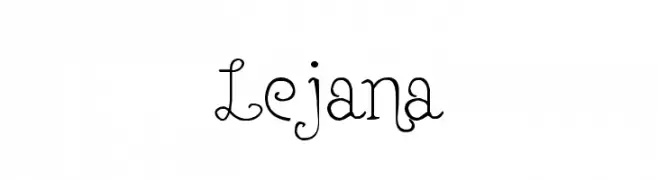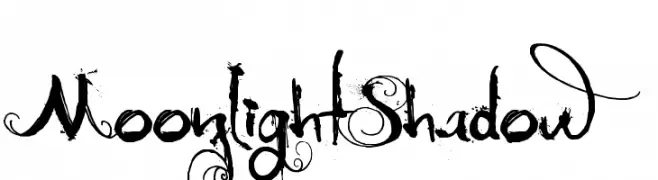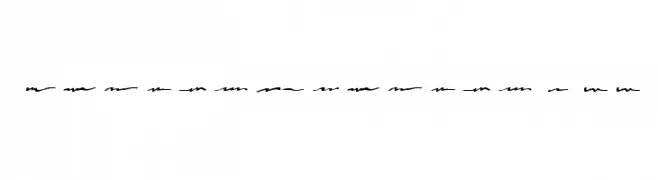
An ornate and decorative font with elaborate swirls and flourishes.
A whimsical and decorative font with playful curls and elegant flourishes.
A bold, decorative font with integrated skull motifs for a playful, edgy look.
A playful, informal handwritten font with dynamic strokes.
An ornate and decorative font with intricate loops and flourishes.
An ornate and decorative script font with intricate swirls and flourishes.
A playful, hand-drawn font with tall, narrow letters and rounded edges.